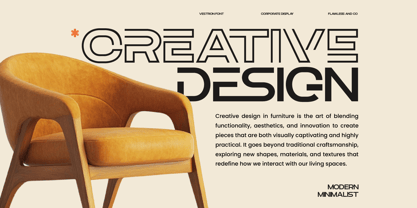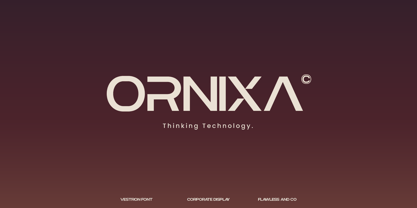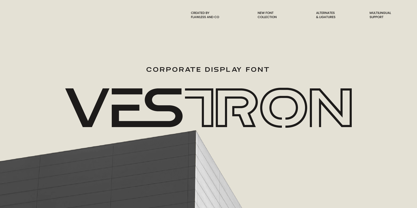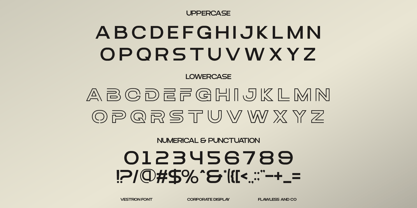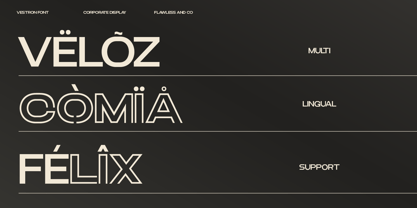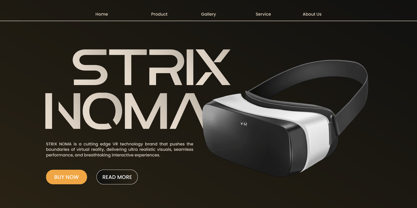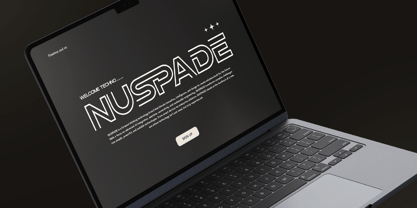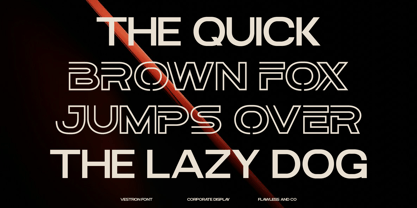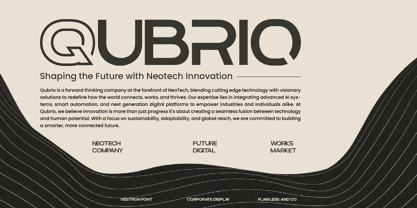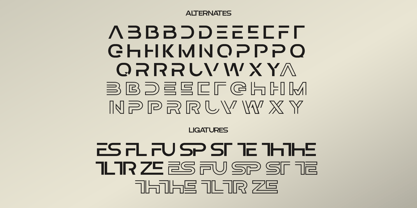
Vestron
by Flawlessandco
The Vestron Font Family was designed by Achmad Yani and published by Flawlessandco. Vestron contains 1 styles. More about this family
Vestron is a futuristic corporate display font designed to bring a sleek, innovative, and professional edge to your projects. With its sharp geometric lines, unique alternates, and modern ligatures, Vestron is the perfect choice for brands that want to make a statement of strength, creativity, and forward-thinking identity. Crafted with versatility in mind, Vestron is ideal for corporate branding, technology startups, digital platforms, modern advertising, editorial design, and sleek web interfaces.
Features :
Multilingual, Uppercase alphabet A-Z, Lowercase alphabet a-z, Numbers 0-9, Some punctuation, Alternates & Ligatures
Designers: Achmad Yani
Foundry: Flawlessandco